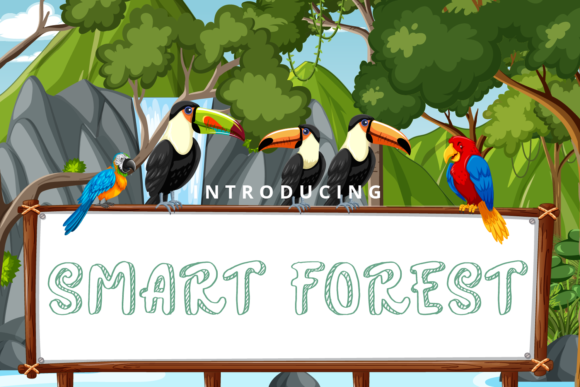
**Unleash Your Imagination with Smart Forest: The Font That Ignites Your Inner Adventurer**
Embark on an extraordinary typographic journey with Smart Forest, a display font that captures the untamed spirit of the wilderness. Inspired by the whispering whispers of wind through towering trees and the delicate dance of sunbeams on fern-strewn paths, this font is a mischievous blend of natural and playful influences.
With its bold strokes and playful curves, Smart Forest whispers tales of epic quests, magical creatures, and brave explorers. It's the perfect companion for children's books, igniting young imaginations with its enchanting aura. Let your words take flight with Smart Forest, as it transforms ordinary stories into extraordinary adventures.
Adorn your magazine titles with Smart Forest's bold personality, captivating readers from the very first glance. Whether you're crafting captivating social media posts that connect with your audience on an emotional level or sharing inspiring nature quotes, Smart Forest adds a touch of whimsical charm to every message.
Venture into the unknown with Smart Forest, the font that inspires you to dream big and explore the wonders of your imagination. Its versatility extends beyond children's books, effortlessly enhancing camping materials and greeting cards with its earthy elegance.
Crafted by the masterful hands of Planetz Studio, Smart Forest is a testament to their passion for creating fonts that ignite creativity. Join the ranks of satisfied customers who have embraced Smart Forest's unique allure, transforming their design projects into unforgettable works of art.